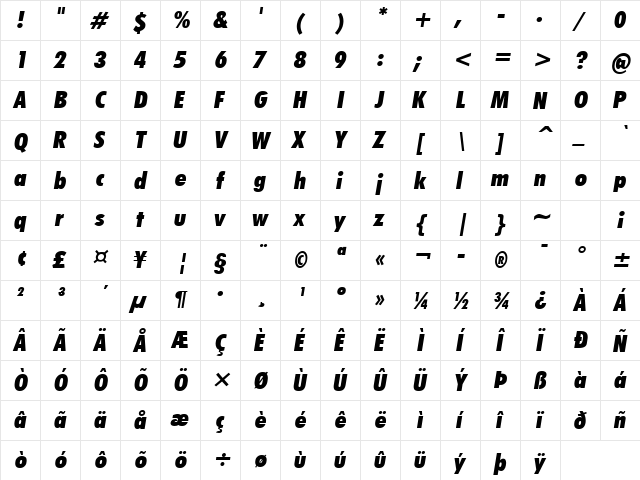
Futuri Cond. Extra Bold Oblique Font Preview
Design Context for Futuri Cond. Extra Typeface
Futuri Cond. Extra channels digital-age aesthetics through its sharp, structured letterforms — ideal for brands that want to signal innovation. The slanted form adds forward momentum and visual energy. Its bold stroke weight gives it real presence on the page. The condensed width makes it efficient for tight spaces without sacrificing legibility.
Pro Tip: Try Futuri Cond. Extra with generous letter-spacing in UI labels and navigation — the geometric forms benefit from room to breathe.